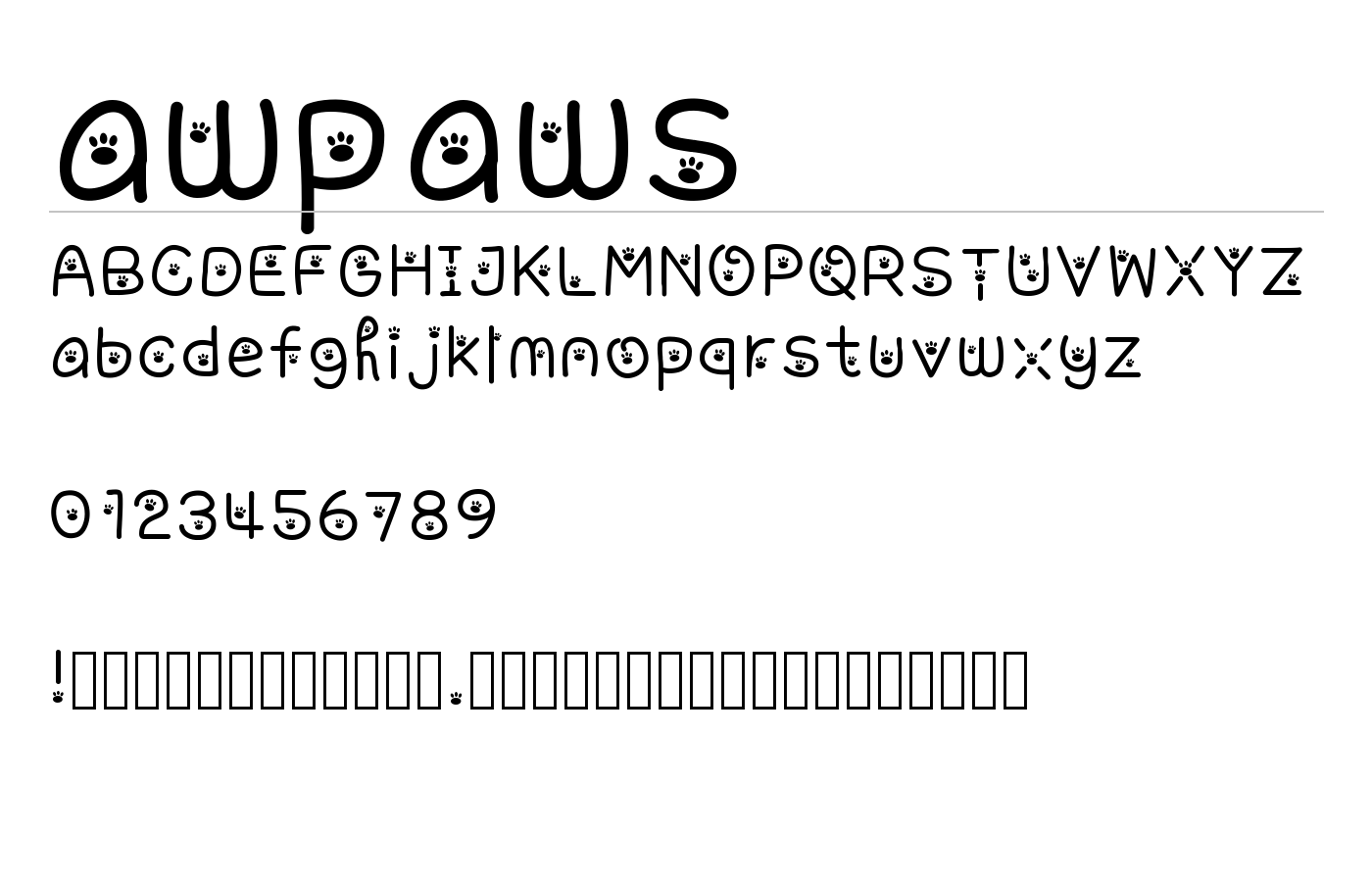
Awpaws is a playful and charming sans serif font featuring rounded, friendly letterforms adorned with cute paw prints integrated into many characters. Its light weight and open spacing create an airy, casual feel that is perfect for pet-related branding, children's products, or any fun, informal design needing a warm and approachable personality. This font adds a whimsical touch while remaining clear and legible for headlines, logos, and packaging.
awpaws Font